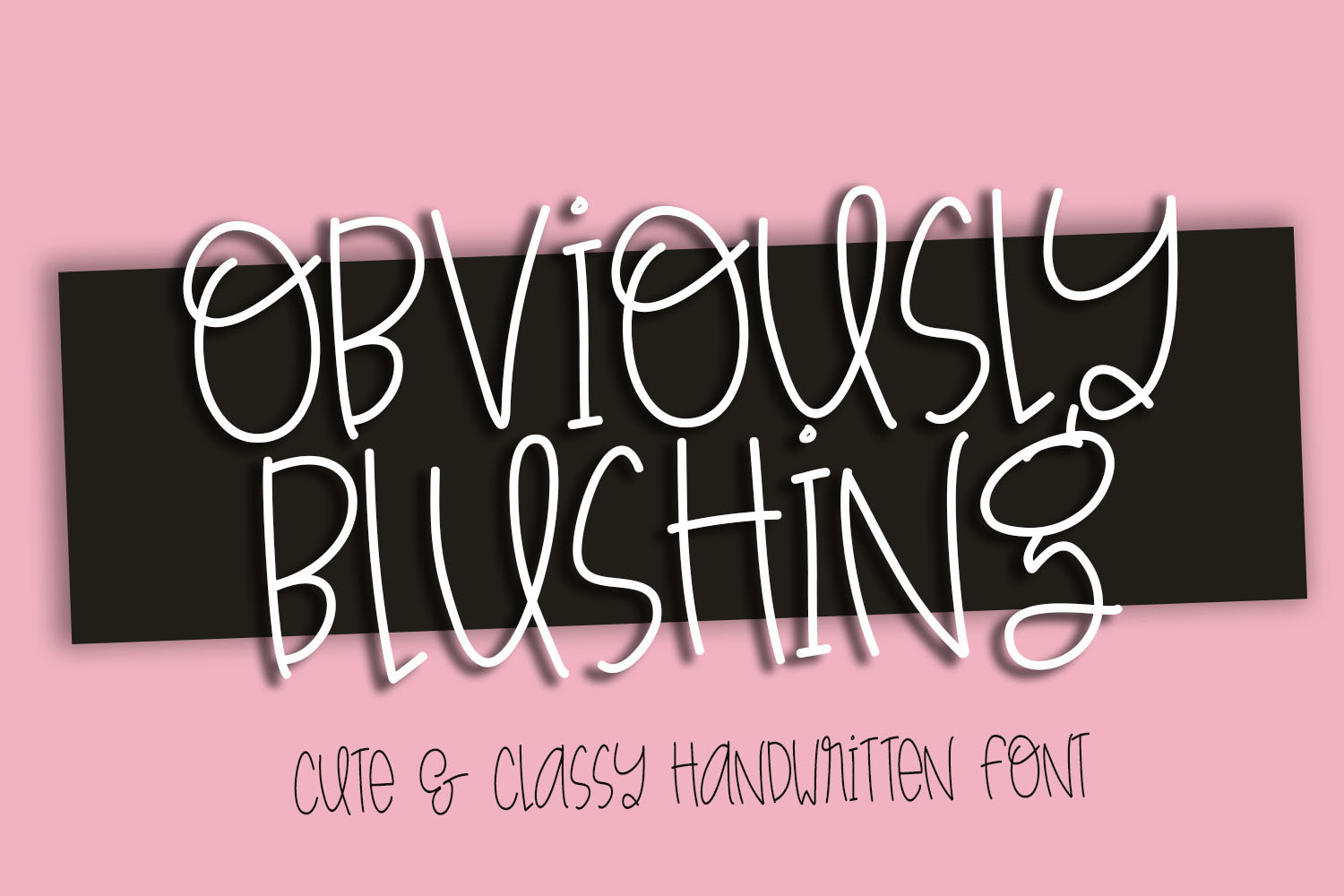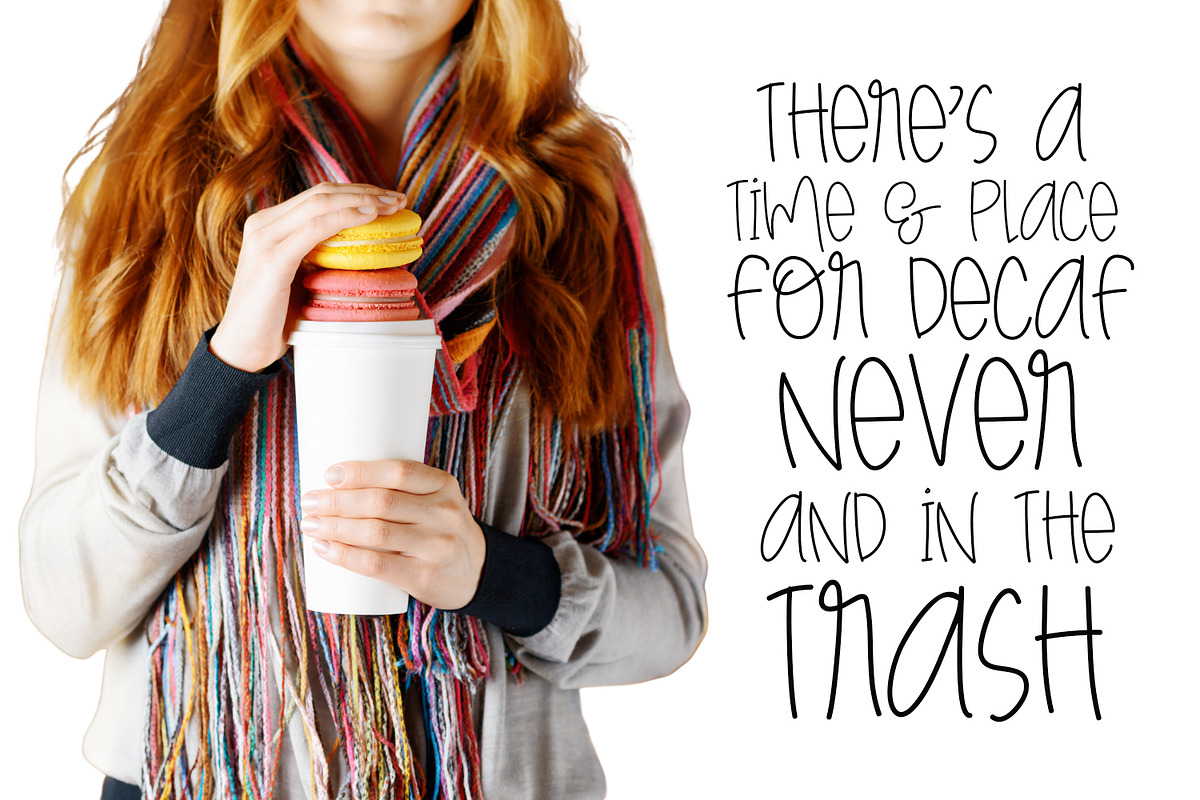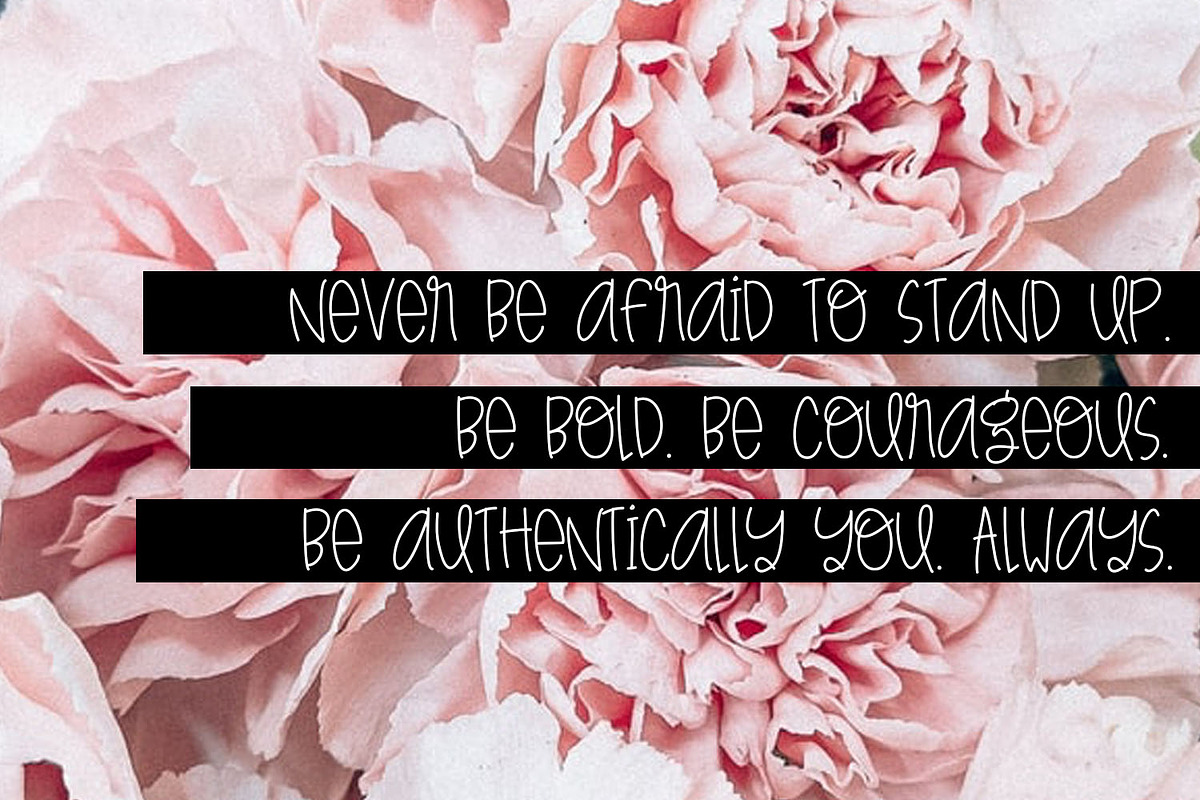
Obviously Blushing Handwritten Font
Obviously Blushing Handwritten Font is a sweetly simple, but super charming monoline, mixed-case font. It is perfect for any design that needs the personal touch of a handwritten font, and would be great on apparel, logos, and more!